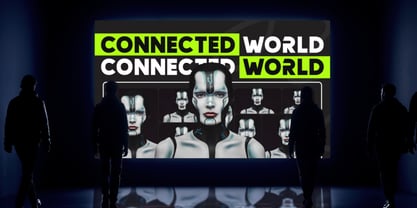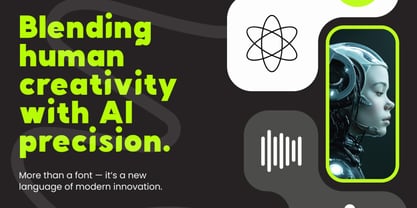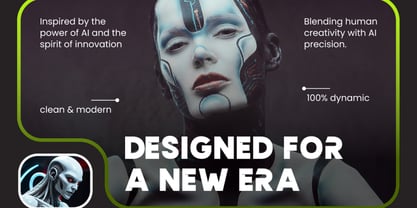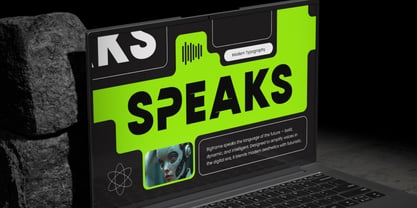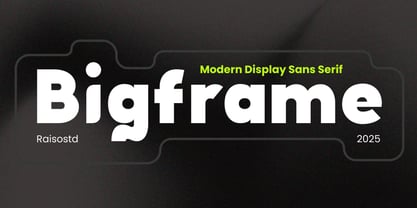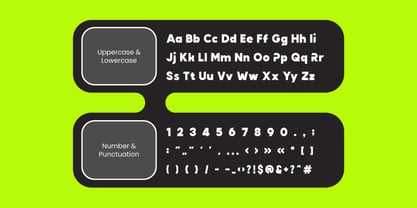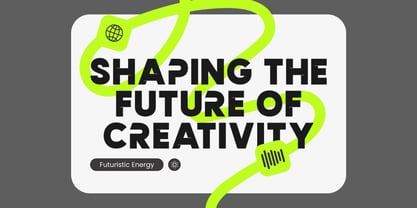
Bigframe
The Bigframe Font Family was designed by Fajar Indra and published by Rasio Studio. Bigframe contains 1 styles. More about this family
Bigframe is a bold modern sans serif built for maximum impact. With its clean geometric shapes and striking weight, this typeface creates strong visual presence in every design. Its youthful energy and confident style make it the perfect tool for brands that want to stand out and communicate with clarity. Relevance and Use Cases is perfect for startup branding, gaming logos, esports graphics, technology campaigns, editorial headlines, modern posters, social media content, digital ads, product packaging, youth-oriented merchandise, and bold creative marketing projects.